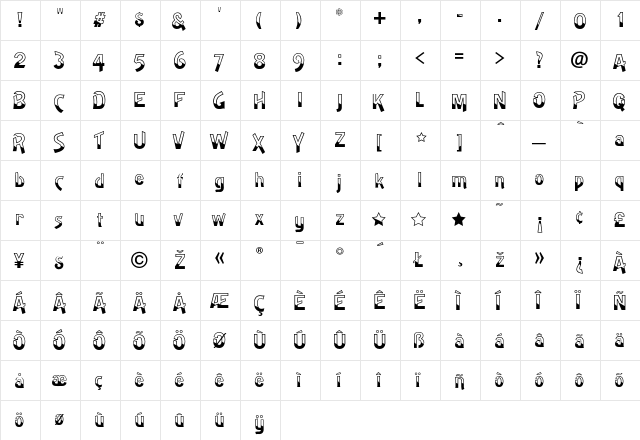
ArtSans Regular
| Foundry | Digitized by Dan X. Solo. Software Dover Publications, Inc |
Design Context for ArtSans Typeface
ArtSans is a composed and adaptable typeface that performs quietly and consistently across a wide range of design contexts.